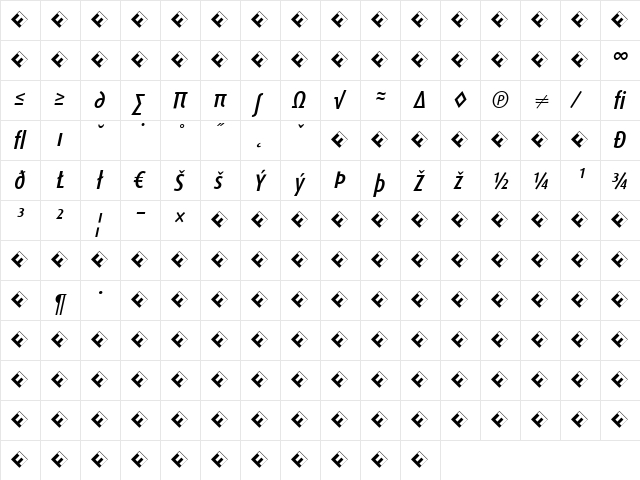
DaxCondensed-MediumItalicExp Italic Font Preview
| Foundry | Hans Reichel, published by Fontshop International for the FontFont library |
Design Context for DaxCondensed-MediumItalicExp Typeface
DaxCondensed-MediumItalicExp is a composed and adaptable typeface that performs quietly and consistently across a wide range of design contexts. The slanted form adds forward momentum and visual energy. Its narrow stance lets it pack a punch even in space-constrained designs.
Pro Tip: Try DaxCondensed-MediumItalicExp for annotation and caption copy alongside an upright companion — the contrast in angle creates a dynamic but ordered typographic system.